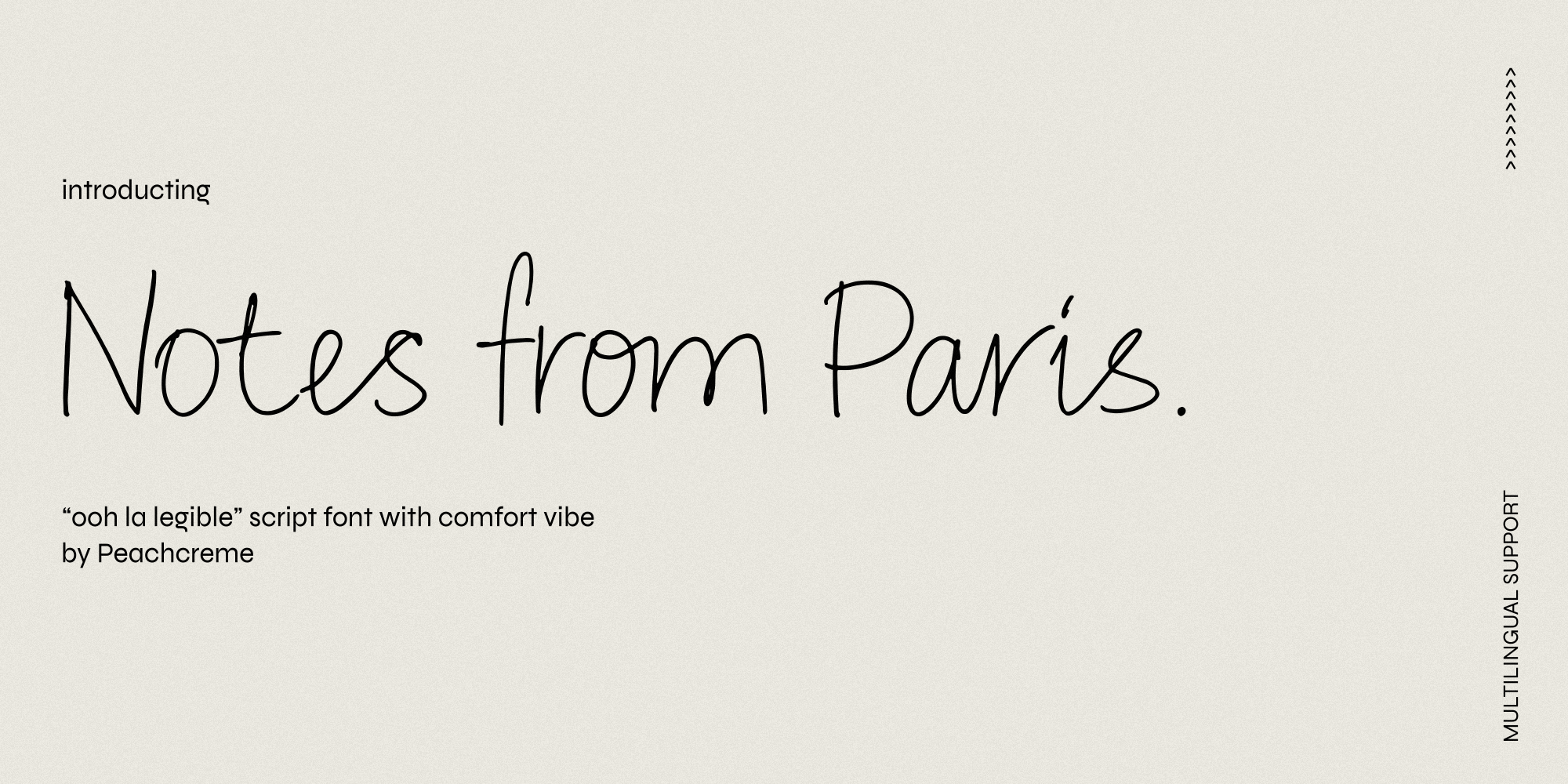
Looking to add a touch of Parisian charm and elegance to your designs? Notes from Paris Font Free Download is the perfect choice. This delicate and graceful script font captures the essence of French sophistication, making it ideal for wedding invitations, branding, logos, and any creative project that calls for a romantic, hand-lettered feel.
With its smooth strokes and flowing curves, Notes from Paris Font Free Download beautifully mimics authentic handwriting, giving your designs a personal and heartfelt touch. This font effortlessly combines style and readability, ensuring your message is both charming and clear.
Perfect for fashion, lifestyle, and luxury brands, this font adds a sophisticated yet approachable vibe to your projects. Whether you’re designing for print or digital, Notes from Paris Font Free Download elevates your visual storytelling with timeless elegance.